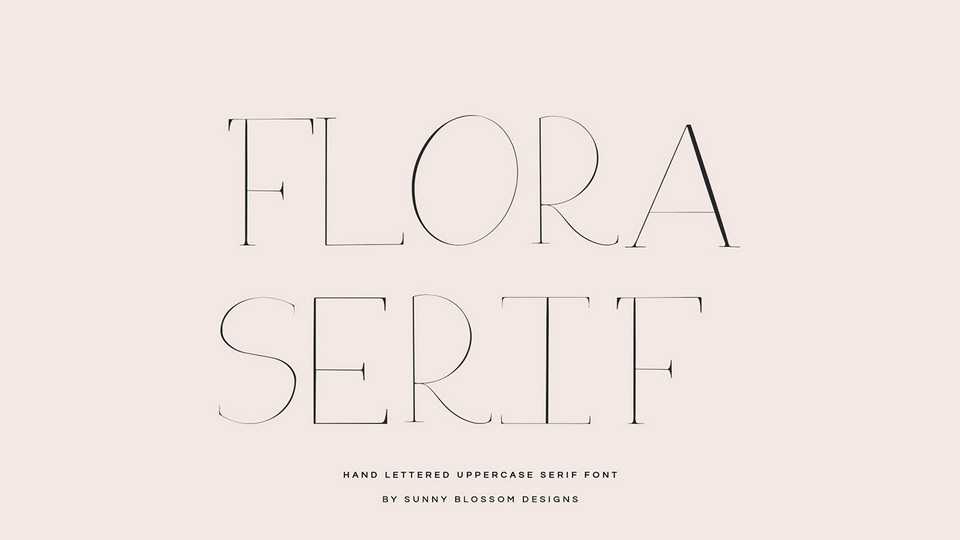
Download Flora font, a modern hand lettered serif typeface that looks elegant and natural. Flora Serif is great for wedding design, cards, quotes, crafts and other beautiful projects.
Designer: Katie Goertzen